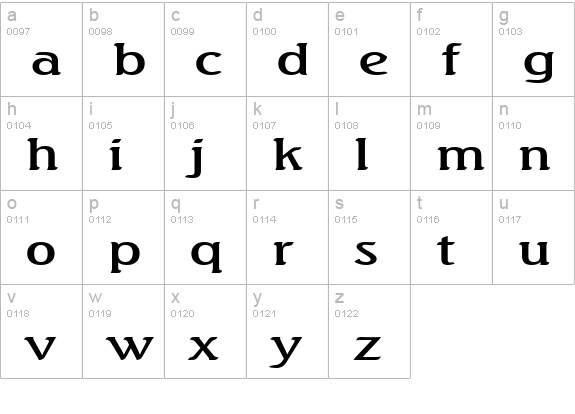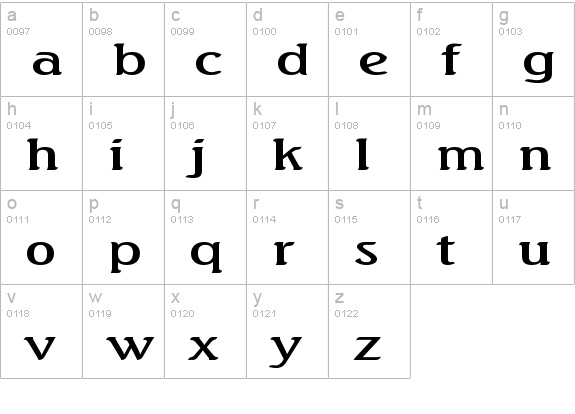
BeachExtended Normal Font Details
BeachExtended Normal is the standard, neutral variant in the BeachExtended typeface family \xE2\x80\x94 well suited to general body text, paragraphs, and standard typographic work.
BeachExtended Normal font is a sleek and modern typeface designed to bring a touch of sophistication to your projects. With its clean lines and elegant curves, this font is perfect for creating eye-catching designs for a variety of purposes. Whether you're working on a branding project, designing a website, or creating print materials, BeachExtended Normal font will add a stylish flair to your work. The best part? BeachExtended Normal font is completely free to download at FontsMarket.com. So you can easily access this versatile font and use it in your projects without any cost. Don't miss out on this opportunity to enhance your designs with the timeless elegance of BeachExtended Normal font. Download it today and start creating stunning visuals that will leave a lasting impression.